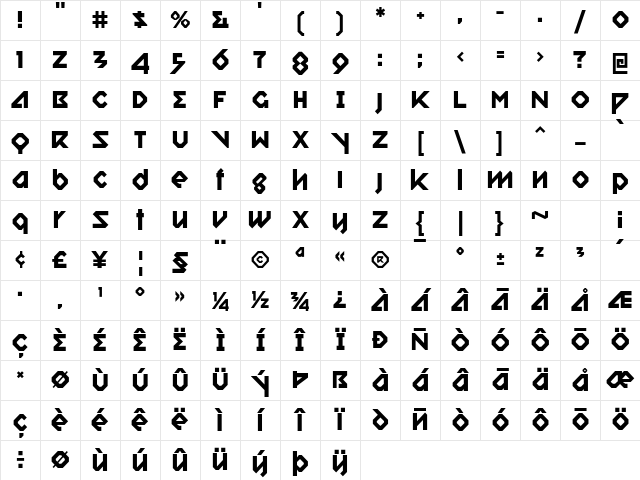
Relish Gargler Regular Free Font
Relish Gargler Regular
Relish Gargler Family
Design Context for Relish Gargler
Relish Gargler is a composed and adaptable typeface that performs quietly and consistently across a wide range of design contexts.